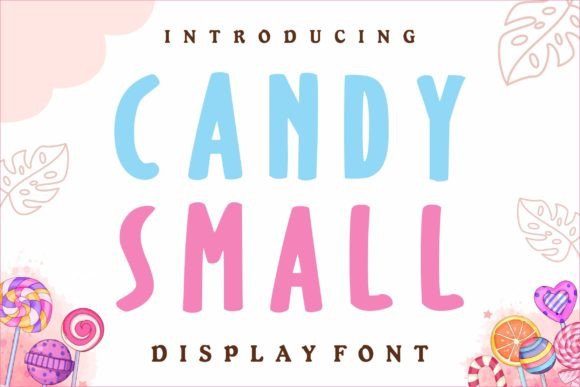
Introducing Candy Small Font: The Whimsical Delight for Kids and Creative Souls
Journey into a world of imagination and boundless creativity with Candy Small Font, a captivating display font that sparks joy and wonder. Designed with meticulous care by Riki.studio, this font is a symphony of playful curves, vibrant strokes, and enchanting characters that will leave you spellbound.
Step into a realm where imagination reigns supreme, where the ordinary transforms into extraordinary. Candy Small Font is a masterpiece crafted to bring a smile to your face and ignite your creative spirit. Its playful nature is perfect for projects that demand a touch of whimsy and charm, such as children's books, invitations, social media posts, and merchandise.
With Candy Small Font as your creative companion, you'll embark on an adventure where words dance and colors sing. Its captivating characters will make your designs pop, adding a spark of playful elegance to every project. Imagine the delight of your audience as they encounter your creations, their hearts filled with joy and wonder.
No matter your creative endeavor, Candy Small Font is your trusty guide, ready to transform your ideas into visual masterpieces. It's a font that speaks to the child within, reminding us of the magic and wonder that surrounds us. Its charming curves and vibrant strokes will captivate your audience, leaving them enchanted and eager for more.
Don't settle for ordinary fonts that blend into the background. Embrace uniqueness, embrace Candy Small Font, and let your creativity soar. This font is not just a collection of letters; it's a portal to a world where imagination thrives and dreams come to life.
So, dive into the enchanting realm of Candy Small Font today and unlock the boundless possibilities that await. Let your creative spirit run wild as you create captivating designs that resonate with your audience, leaving them in awe and wonder.